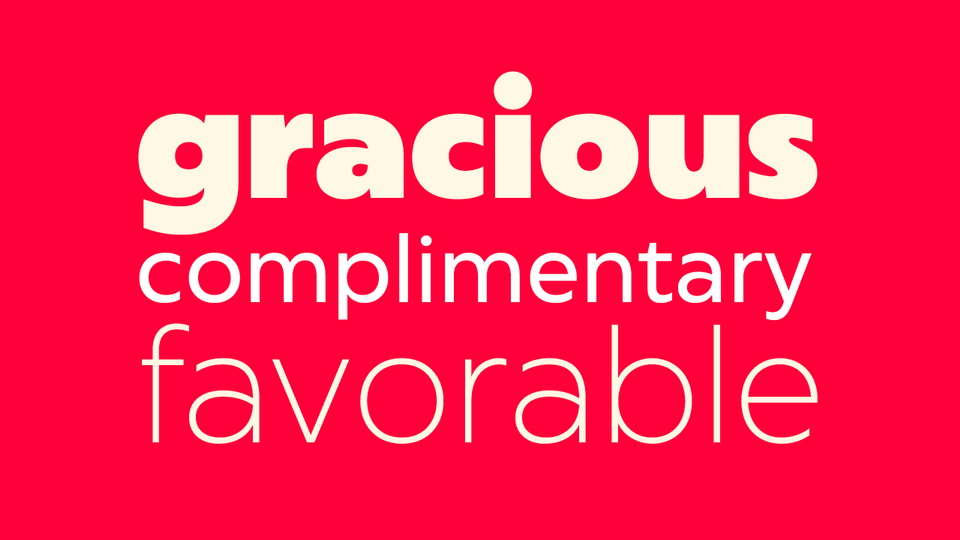
Captura Now is a sans serif font family that supports you create your next award-winning typographic experience. Carefully refined shapes and sensitively balanced spacing and kerning create the gentle rhythm that grants Captura Now its warm-hearted face, perfect in form and shape.
Expanded with an enormous character set, Captura Now offers the freedom to transform your design into the Cyrillic-language world, as well as into any Latin based language — including Vietnamese.